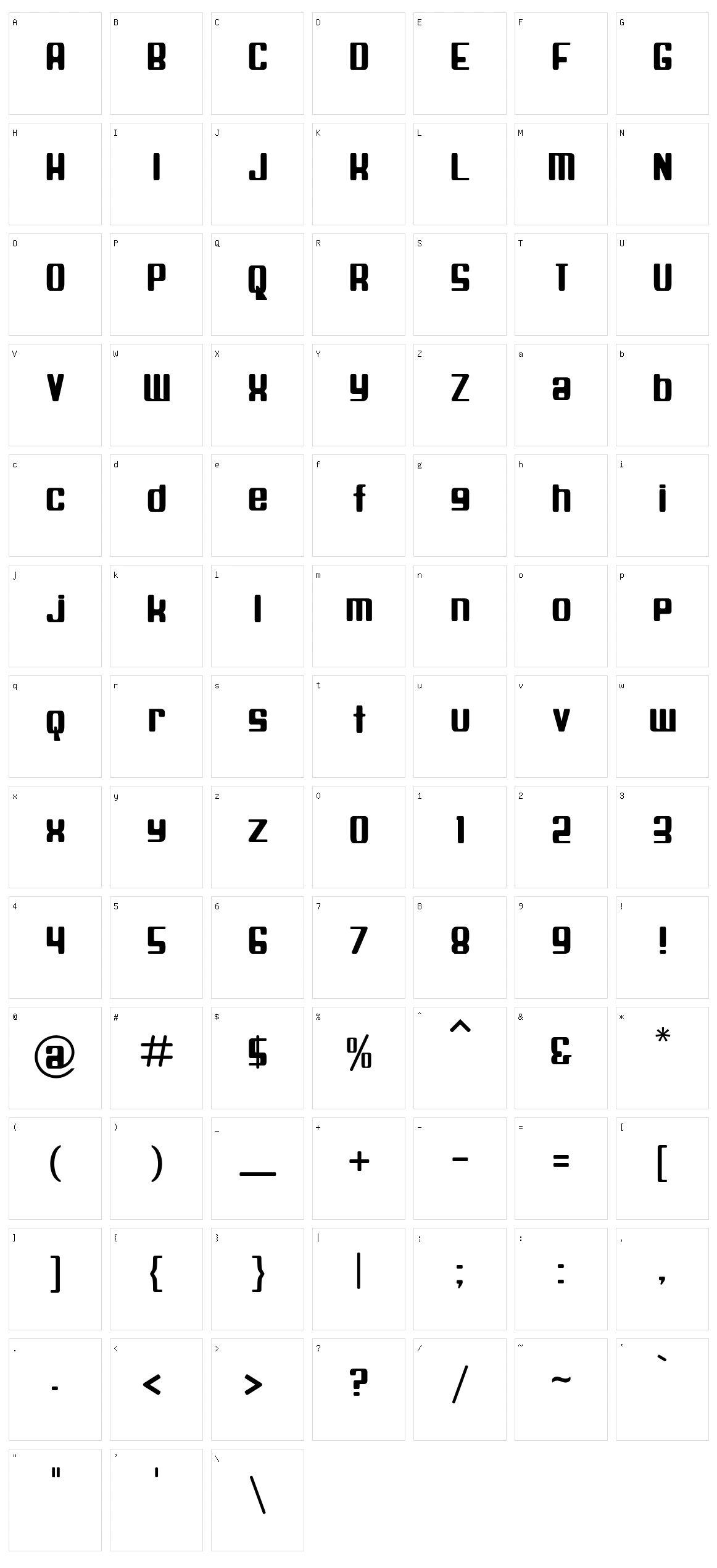
Spaceship Bullet
Designed by: Steve Ferrera
This font is not an official font, but is inspired by the characters seen on "Stitch's Great Escape"®© attraction at Walt Disney World®© and is not affiliated with The Walt Disney Company®© in any way.